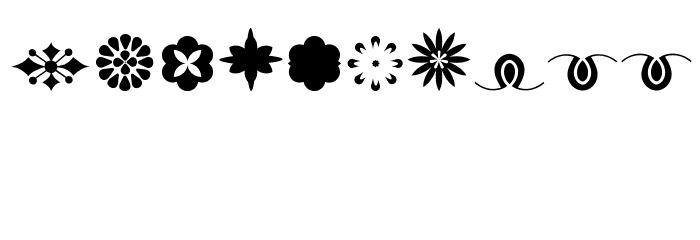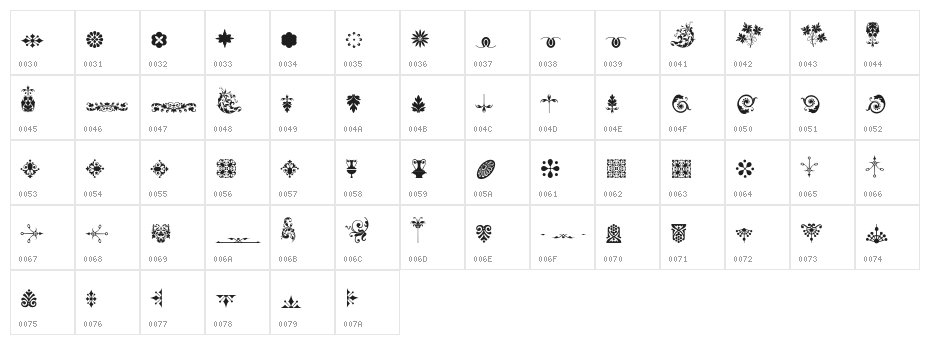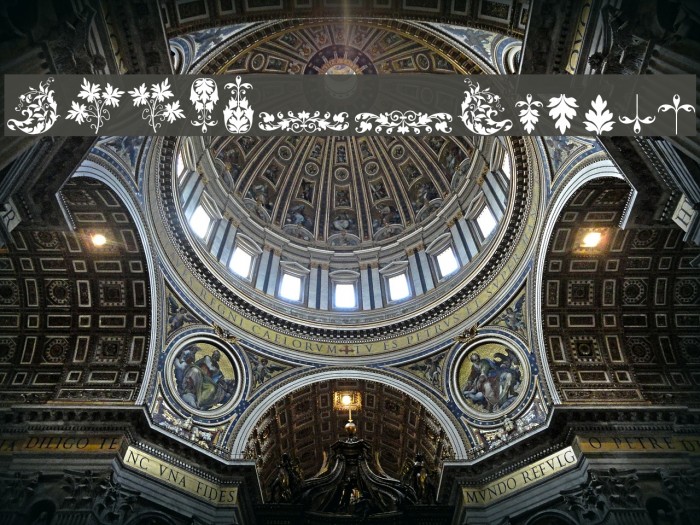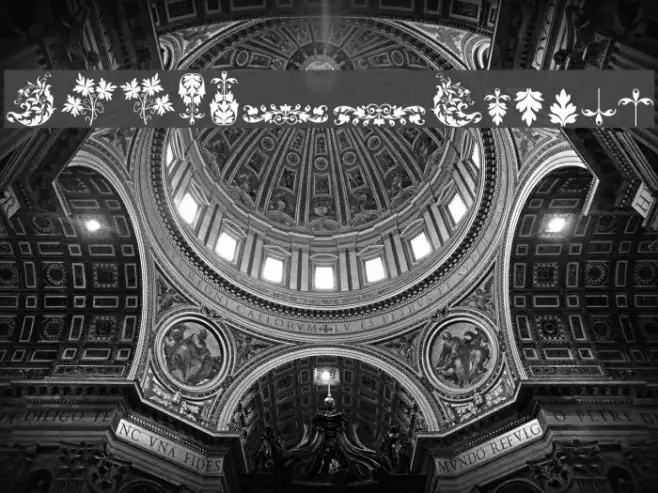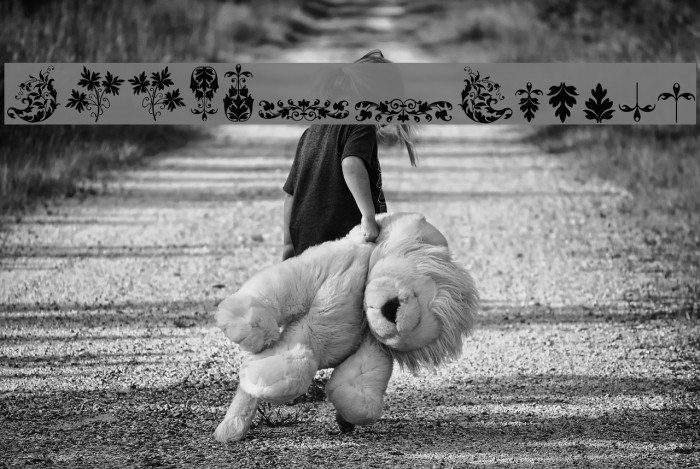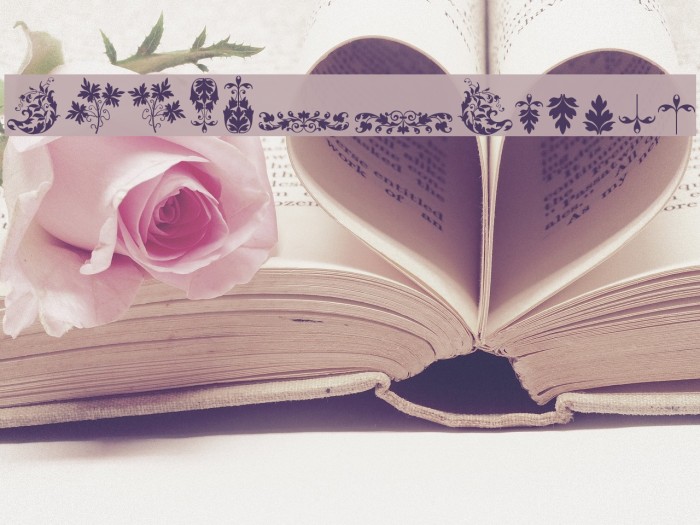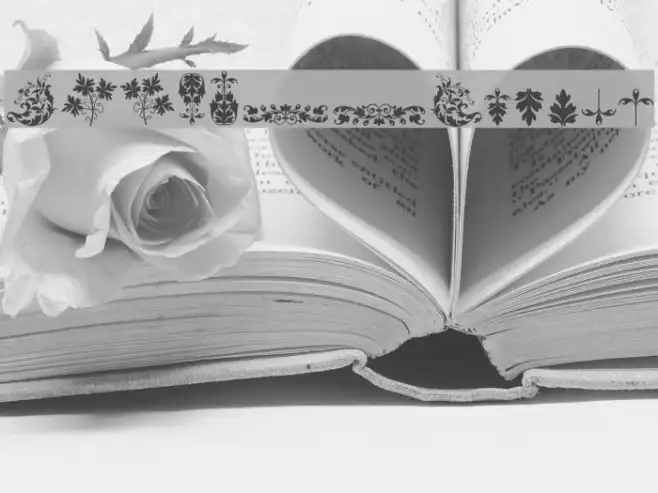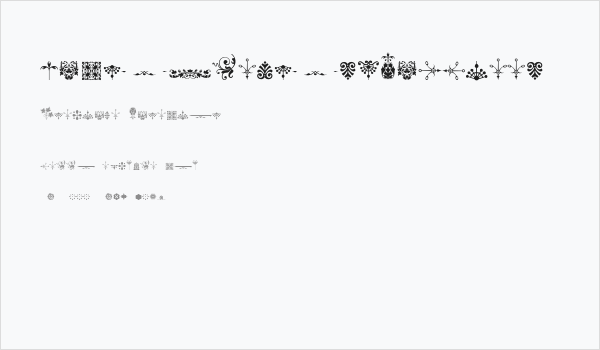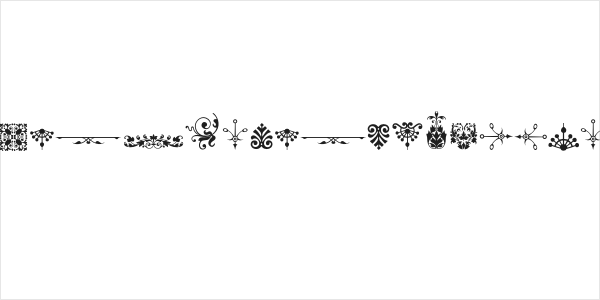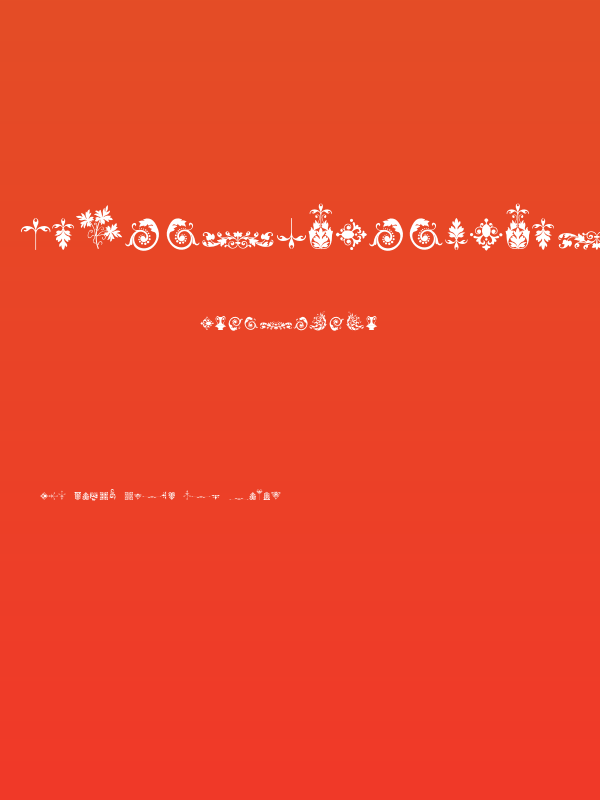
MicroFleuronsEighteen Font
MicroFleuronsEighteen Description
A collection of intricate, ornamental fleurons and decorative motifs featuring floral, leaf, and geometric patterns. The glyphs are highly detailed and symmetrical, evoking a vintage or classical aesthetic suitable for embellishments.
| Overall Style | Vintage, Decorative, Classic |
| Use Case | Borders, embellishments, dividers, ornamental accents |
| Proposed Projects | Book covers, invitations, certificates, decorative borders, packaging, vintage branding. |